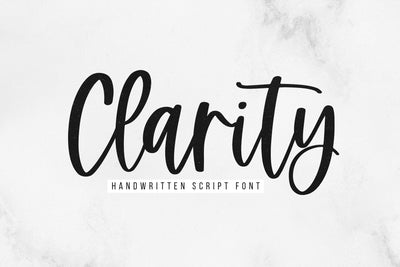
Clarity - Handwritten Script Font
Clarity is a handwritten script font.
This font is perfect for crafts, branding, logos, shirts, svg designs, invitations, home and wedding decor!